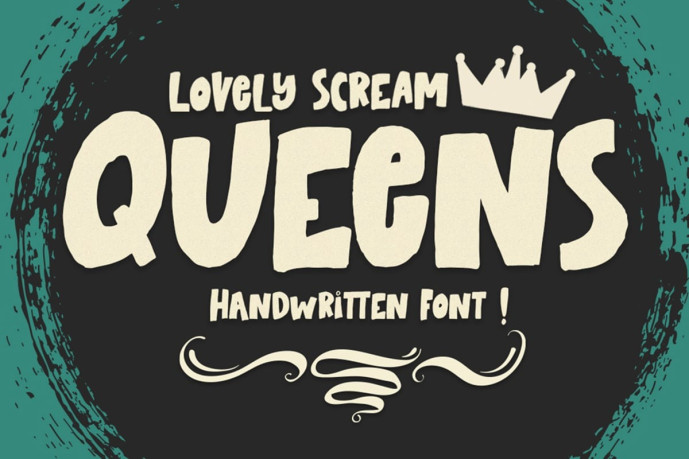
Lovely Scream Queens Font
Lovely Scream Queens Font is a hand brush font made with brushes and ink. This typeface is ideal for use in thick watercolor designs or in those needing a hand writing touch such as blog titles, posters, comic books,Fairytales, book covers, business cards, greeting cards, branding, Cartoon and more.